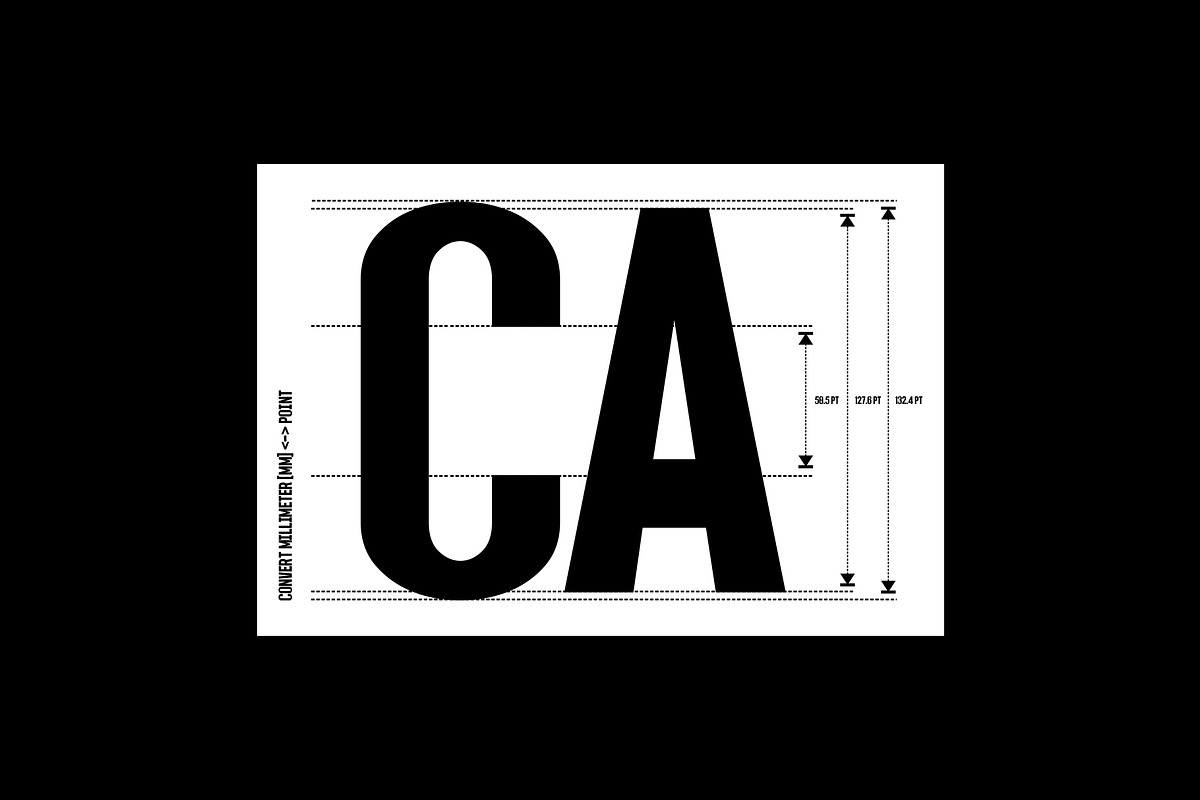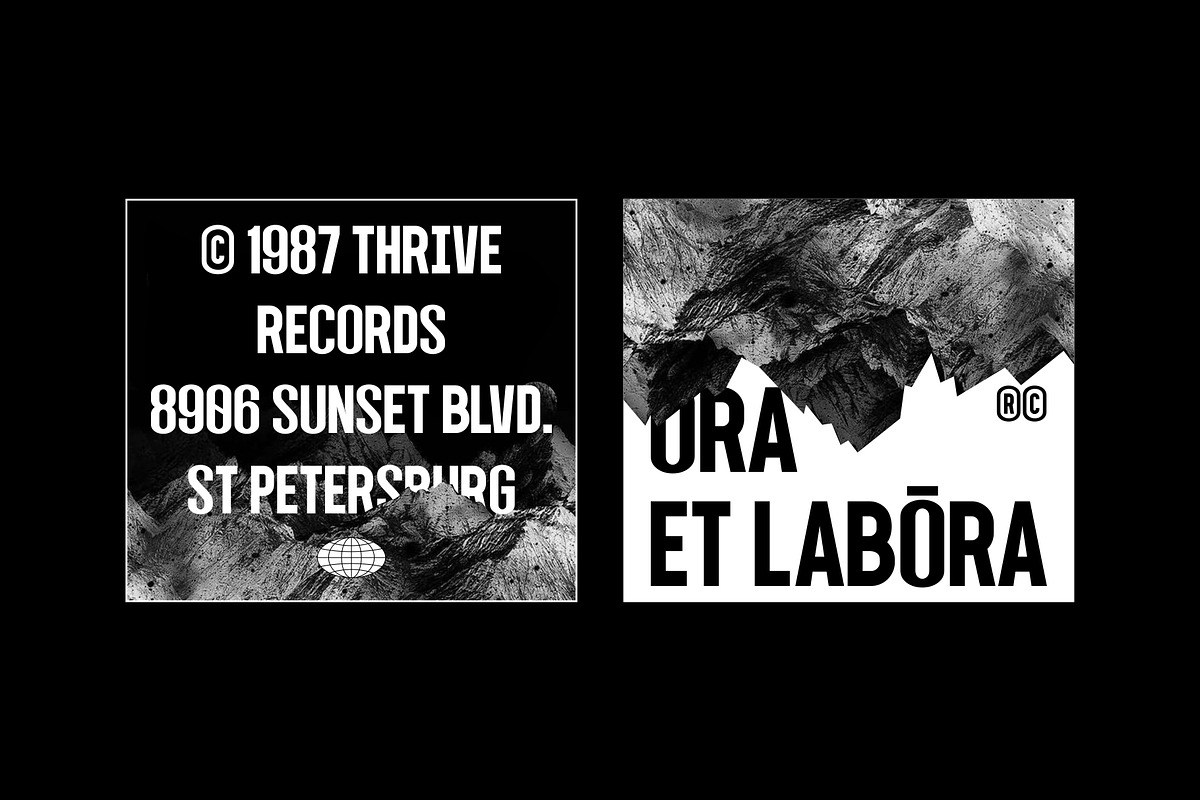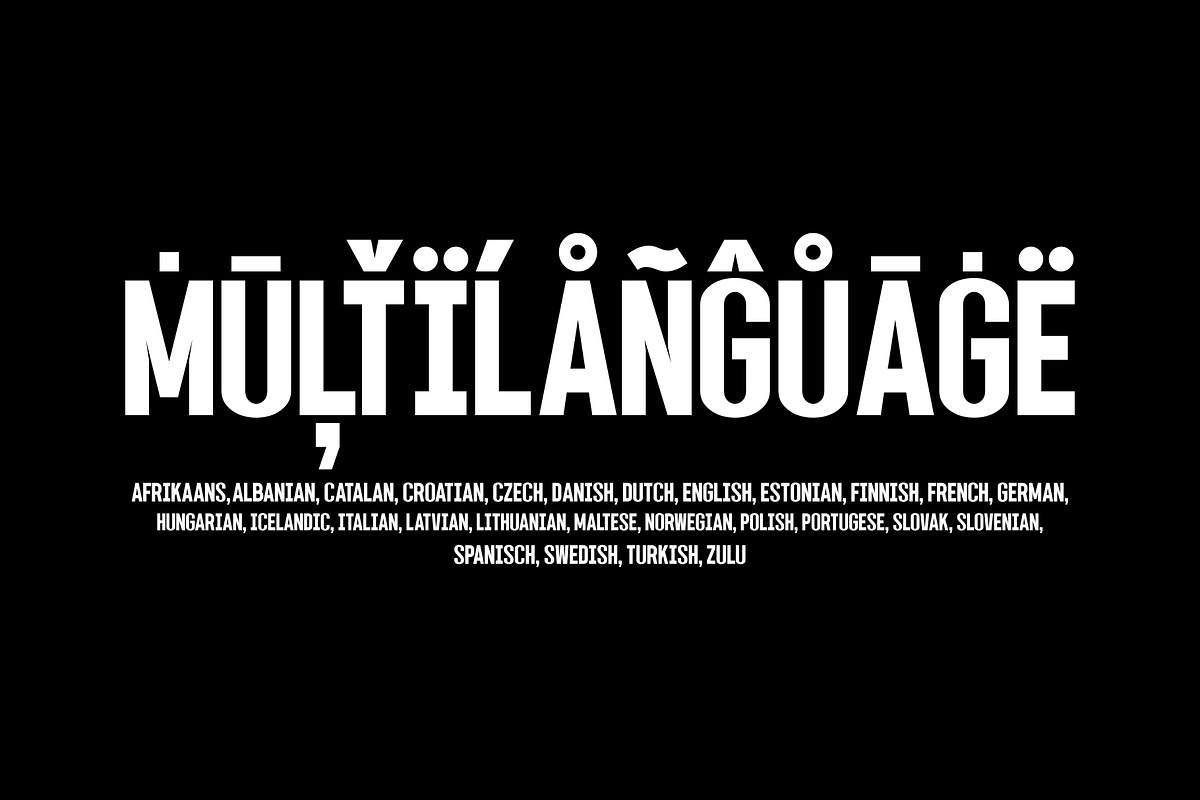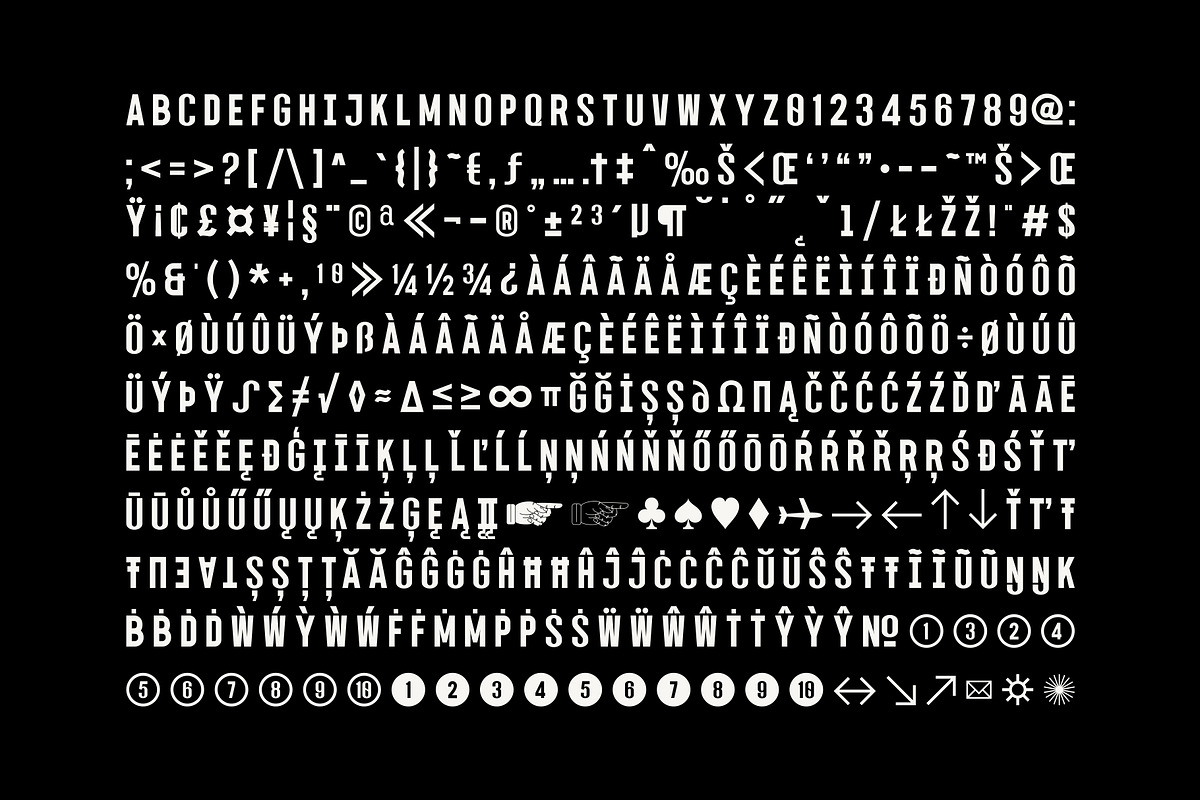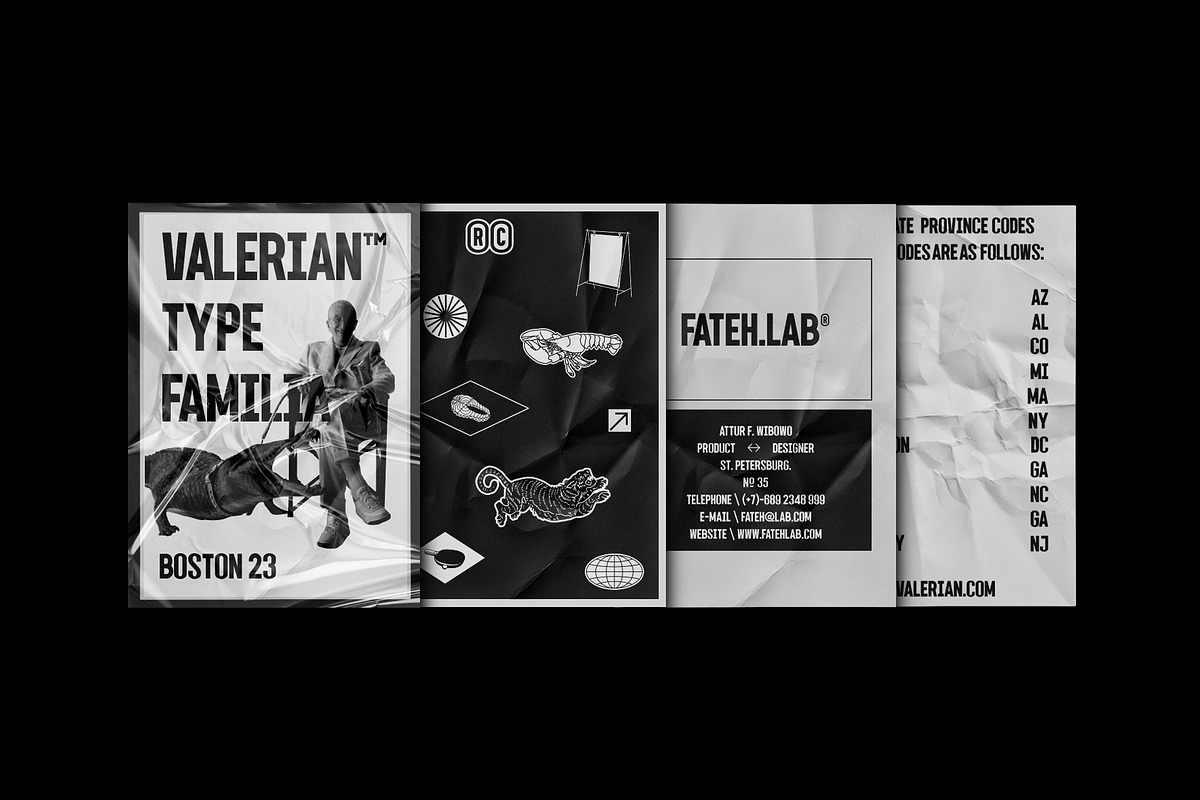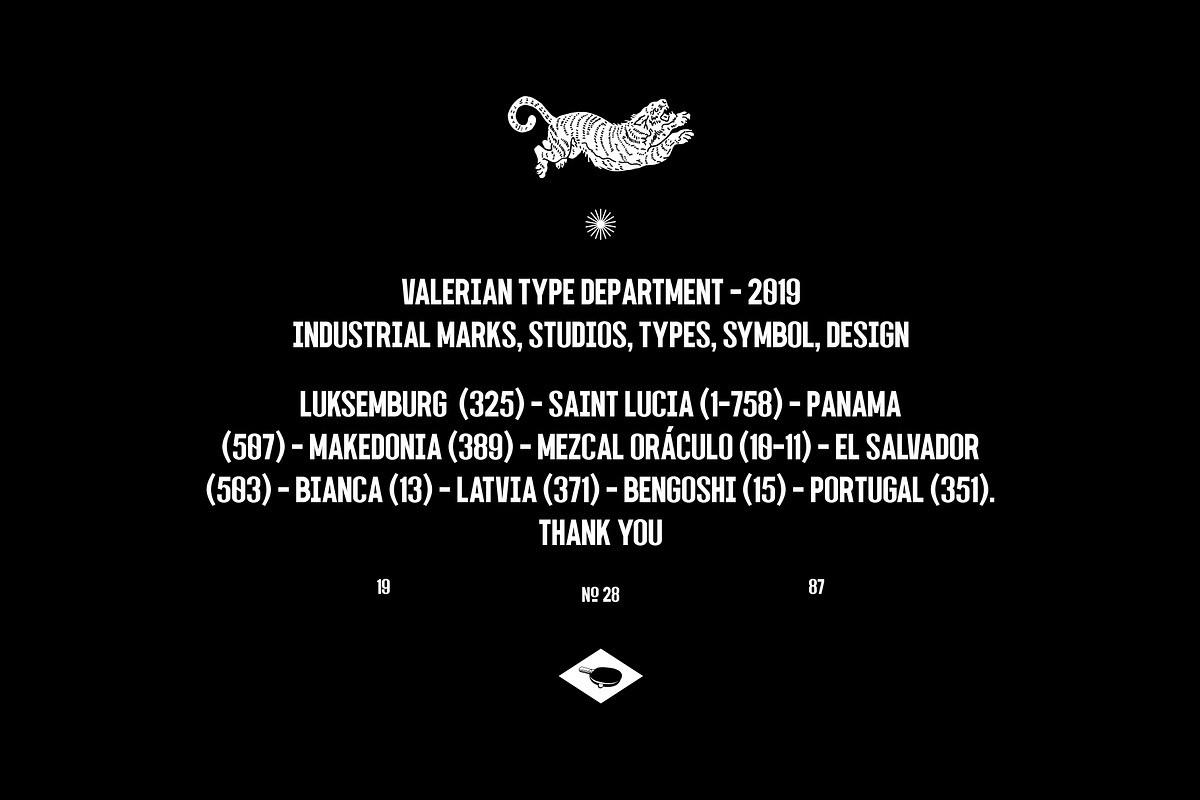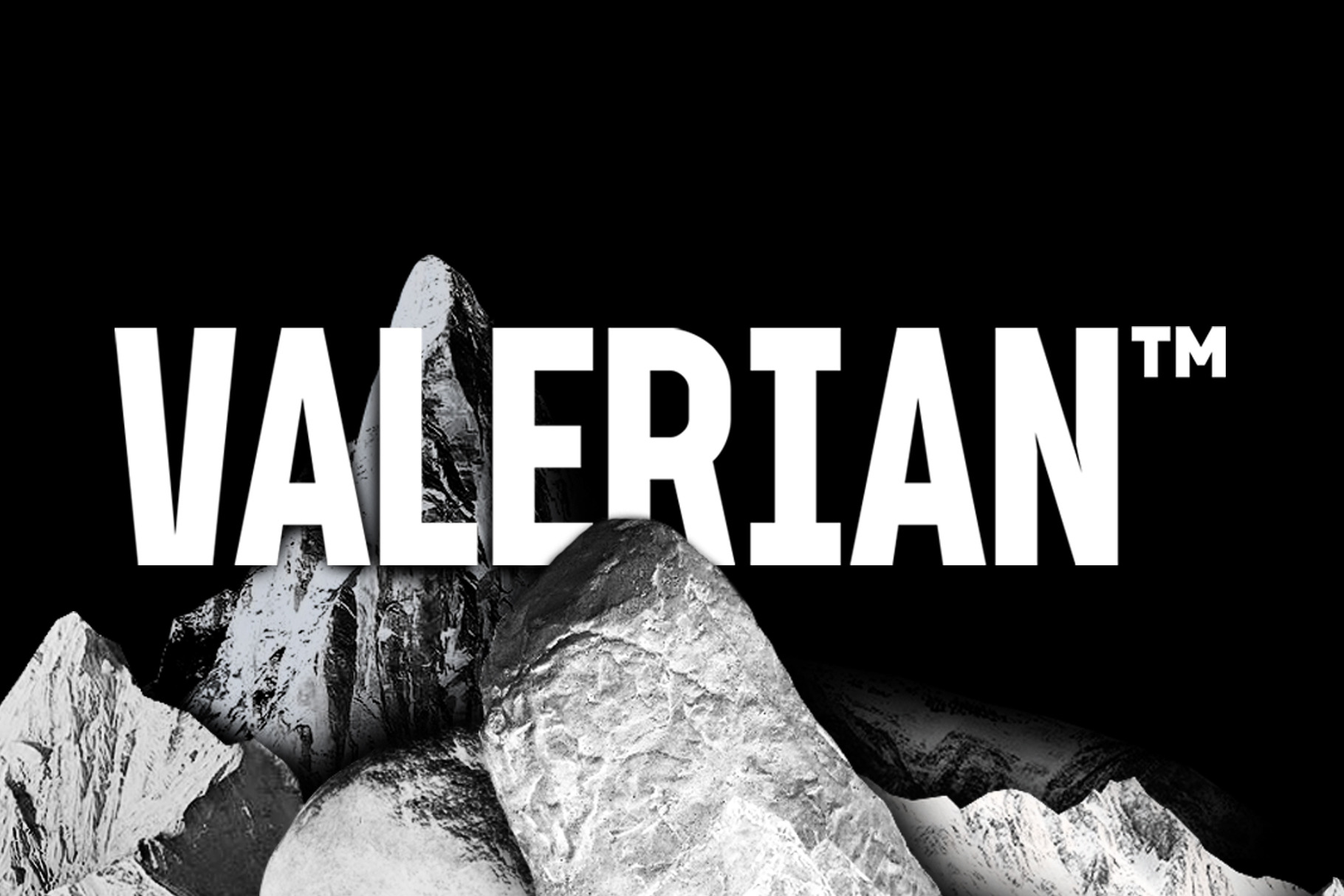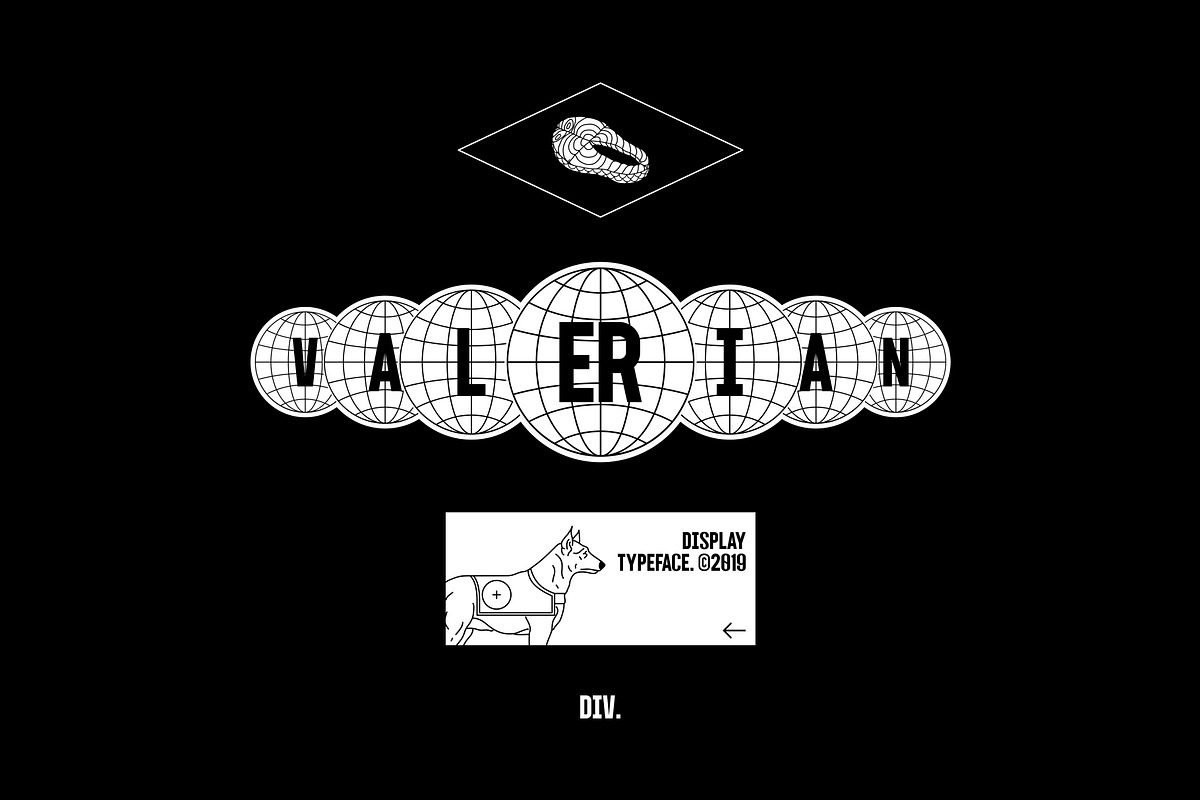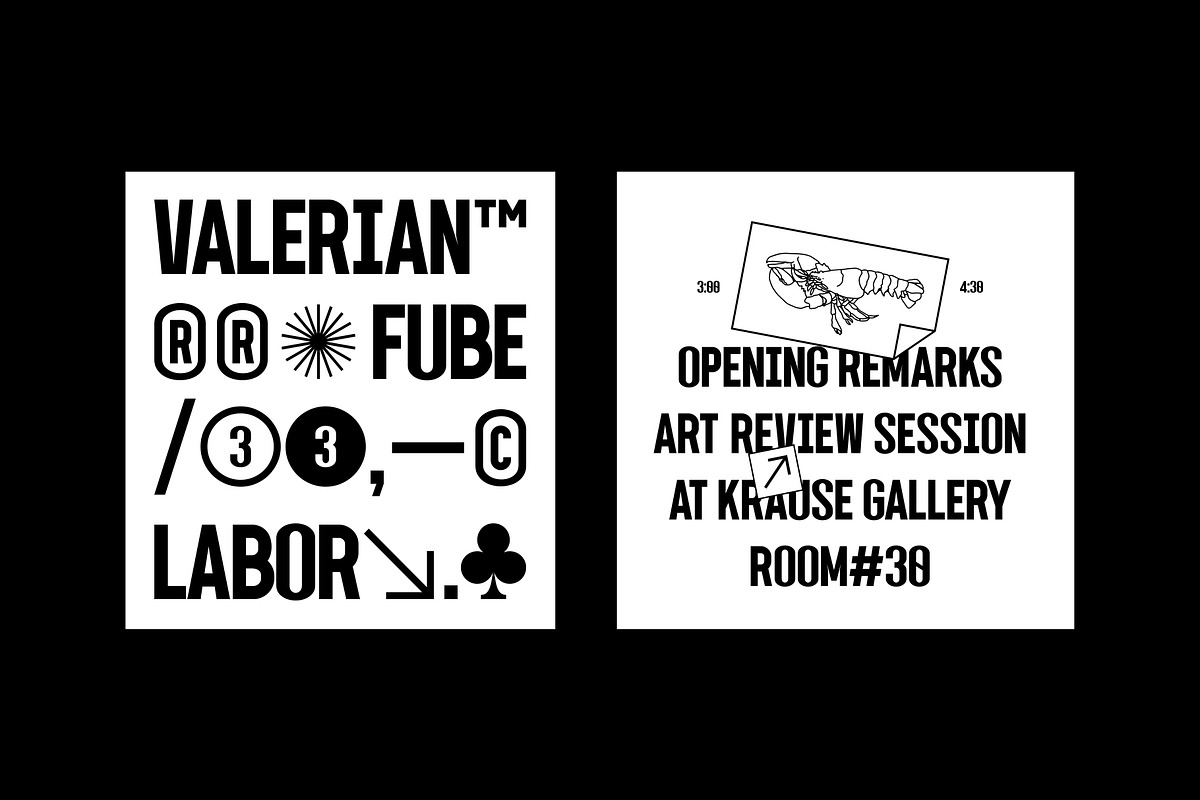
VALERIAN | DISPLAY FONT
Valerian comes with an elegant and sturdy form, a modern touch feels strong in this font. And this is really cool when combined with posters, social media, headlines, titles, large format prints, quotes, short texts - and all the ideas you have. Valerian is the right answer to fulfill all your design needs, really this font is very fun.